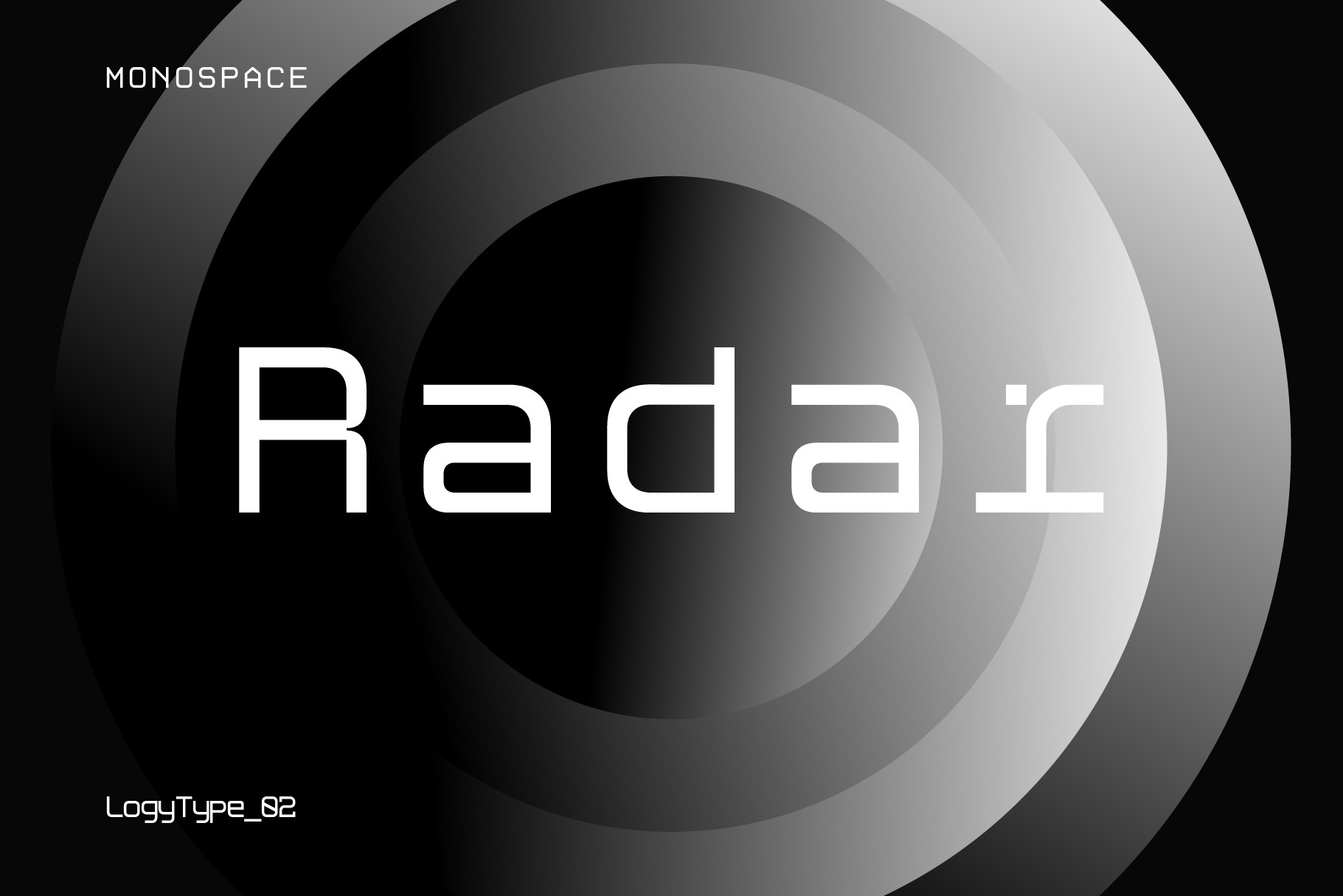
Radar Monospace Font
Radar is a monospaced display typeface that blends precision with futuristic style. Designed with geometric consistency and mechanical clarity, each character aligns to a fixed width, giving the font a clean, modular rhythm perfect for digital and technical applications.
💡 Ideal For
- Tech and sci-fi branding
- User interface design (UI/UX)
- Developer tools and code editors
- Editorial layouts and posters
- Digital products and dashboards
Radar merges modern readability with machine-inspired aesthetics. It’s the perfect typeface for designers looking to communicate innovation, clarity, and control.